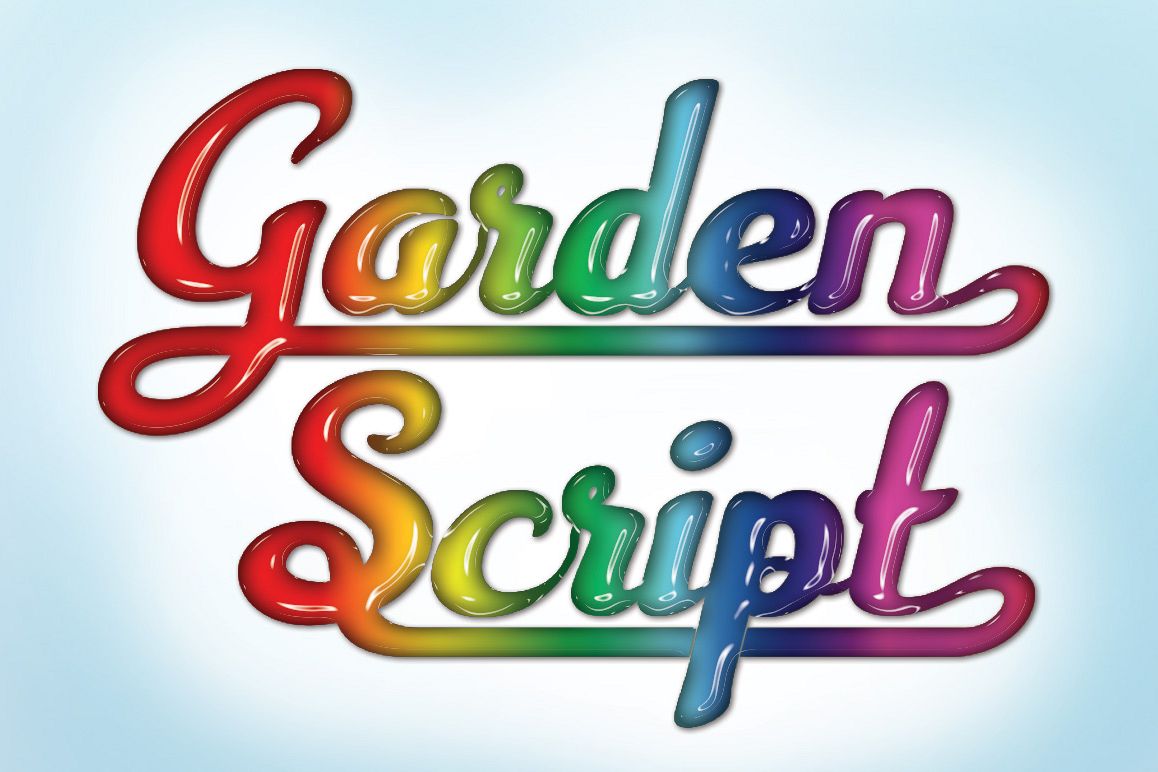
Garden Scipt
Garden Script
Introducing bold and beautiful typeface.This font have four main style and working integrated in a font. With thousands alternate characters, this font act as logo machine for your project. Working in wide purpose; logo, title, subtitle, feminine, masculine, serious and playful theme.
The greatness of this font:
• This font contain 2.592 glyphs and supported to basic Latin character and eastern Europe language.
• To avoid of difficulty of use alternate character, I feature it with thousands of shortcut to make access alternate character be so fast and easy! (Activate Contextual Alternates feature)
• Automatic initial and final letter form.